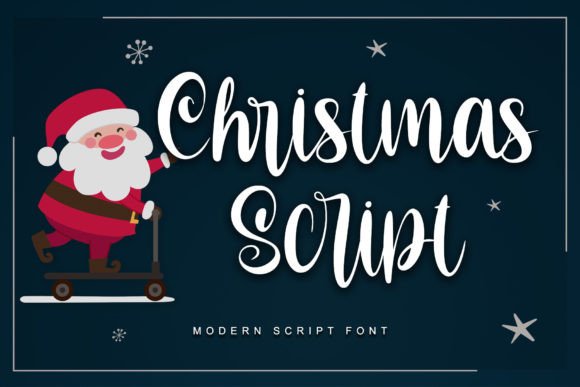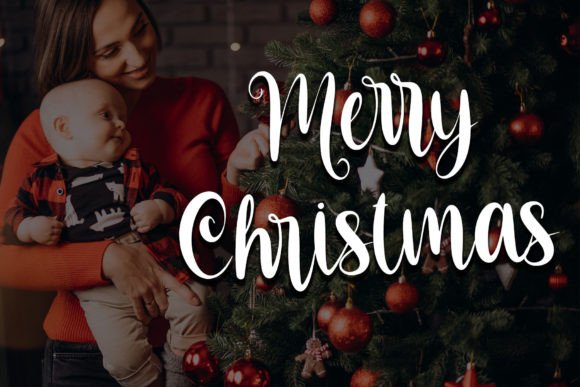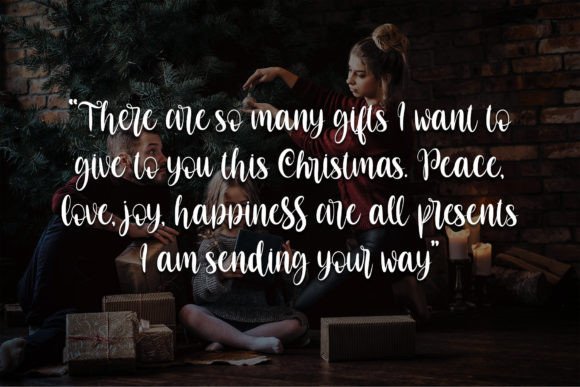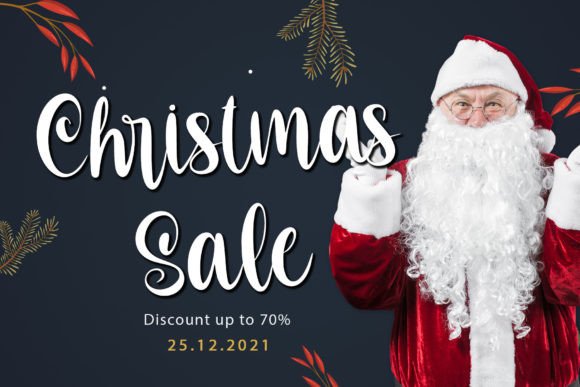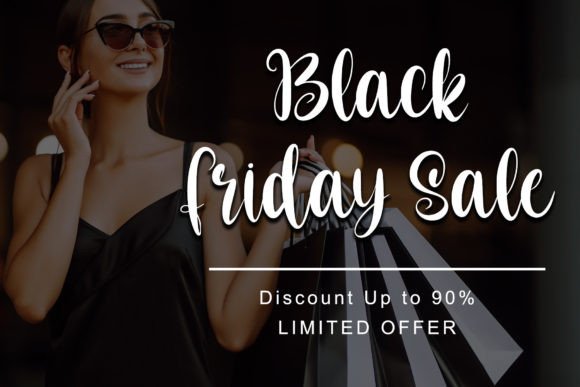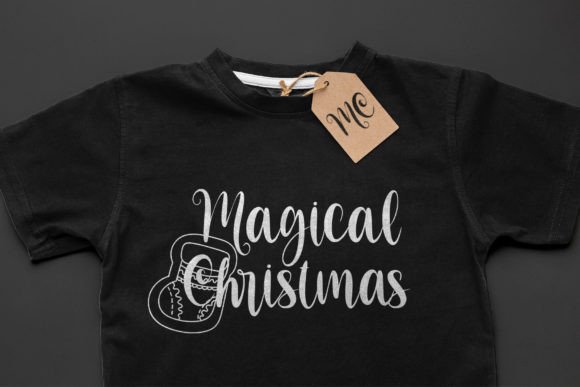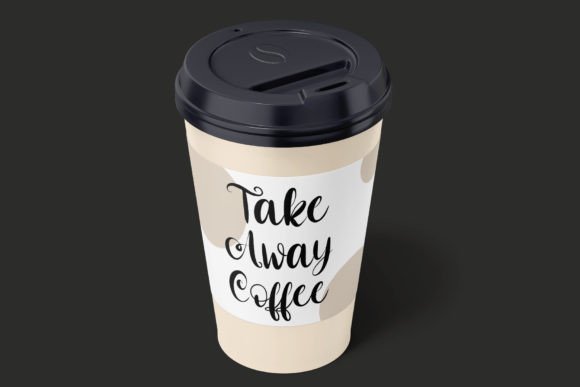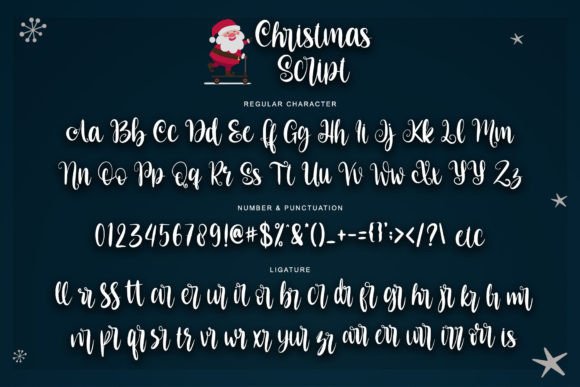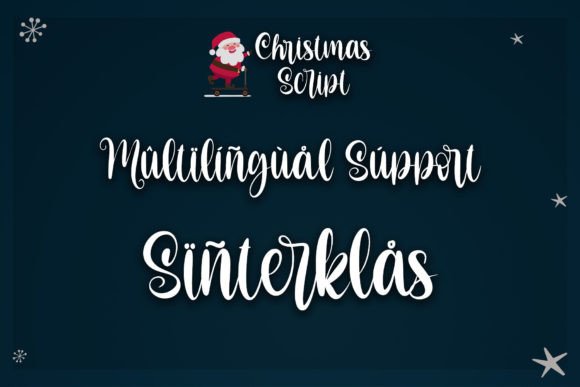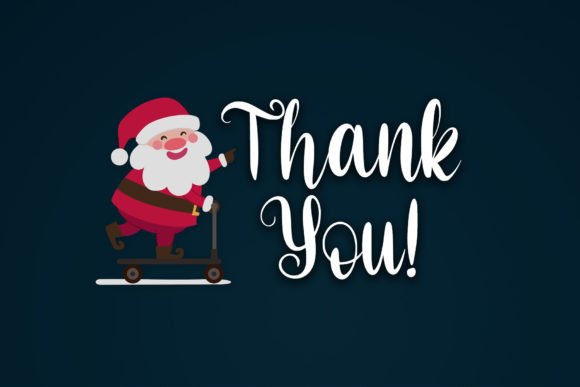
Christmas Script Font
About Christmas Script Font
Christmas Script is a charming and festive handwritten font. It looks stunning on wedding invitations, thank you cards, quotes, Christmas greeting cards, logos, business cards, and every other design which needs a lovely touch. It is also PUA encoded which means you can access all of the glyphs and ligatures with ease!